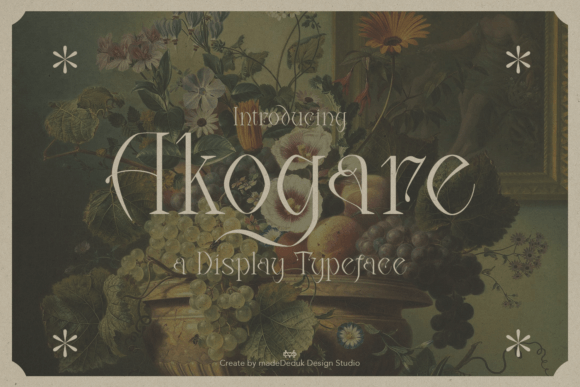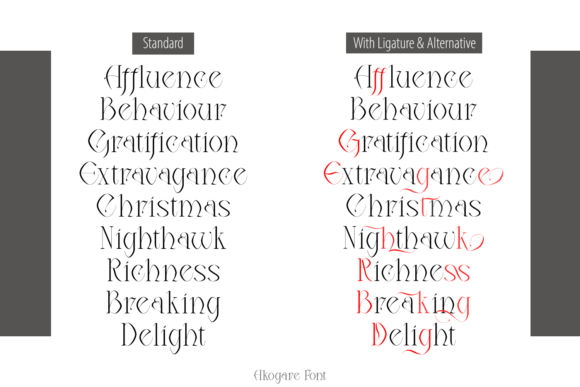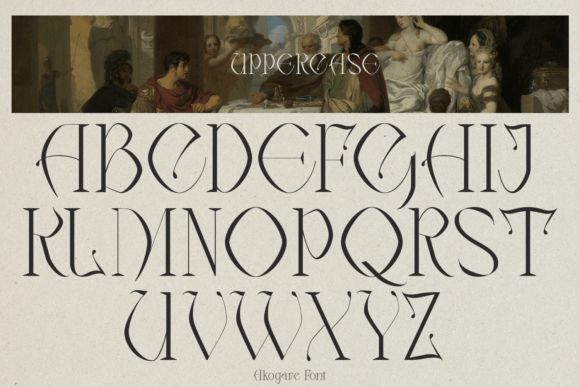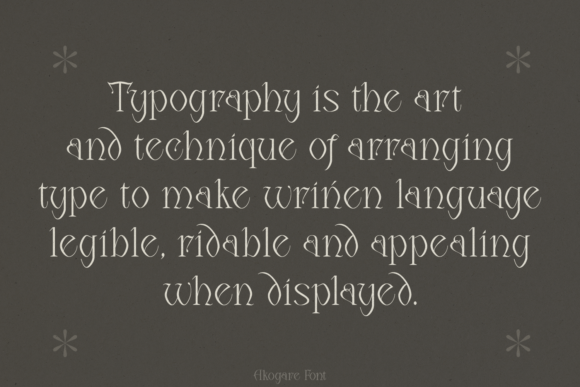
Akogare Font: Elegant Serif Typography for Vintage Logo Design
About the Akogare Font
The Akogare Font is here to transform your projects with its distinctive character and style. Akogare is a display font inspired by the empire era which will bring your project a strong and powerful touch. Browse through all the previews and get as inspired as I was when creating this font.
This font is very perfect for many display purposes in your product design if you want to a vintage and classic style, elegant and luxury. Such as book covers, product labels, logos badges, drink bottles, tattoo shop, coffee shops, fashion products, etc.
Akogare’s strong, powerful forms make it ideal for headlines, logos, and short, impactful text within branding materials. It excels in applications requiring a vintage-inspired, yet elegant aesthetic, such as packaging for luxury goods or posters for events with a classic feel. However, its weight and detail make it less suitable for body text or UI elements where readability at smaller sizes is crucial.
Pairing Akogare effectively requires considering its bold personality. A clean sans-serif like Montserrat or a geometric sans-serif such as Futura would provide a contemporary contrast, balancing Akogare’s ornate details. For a warmer feel, a serif like Garamond or a more modern serif like Playfair Display could work well. Avoid pairing it with overly decorative fonts, which might clash with its strong presence.
Akogare’s overall personality is best described as bold, elegant, and classic. It projects an air of sophistication and authority, making it a suitable choice for brands aiming for a timeless, high-end image. Its vintage inspiration adds a touch of nostalgia without sacrificing modernity.
Akogare Font Usage Examples
Akogare Font Example